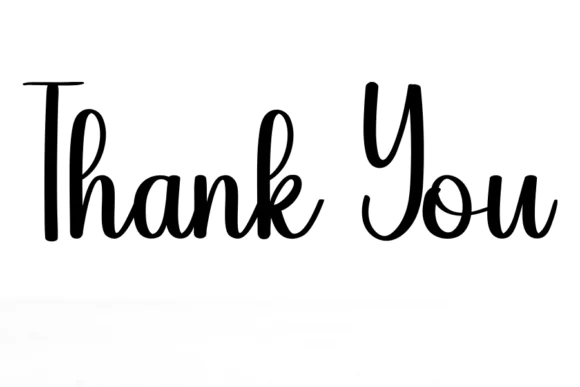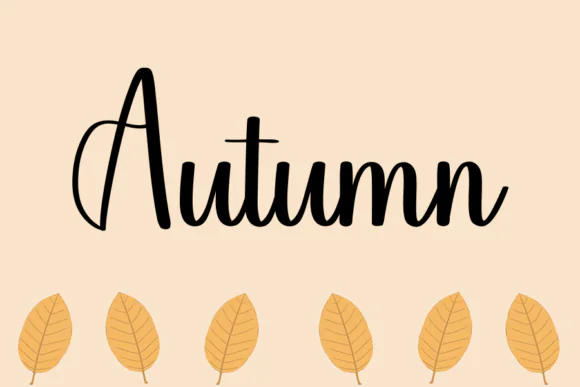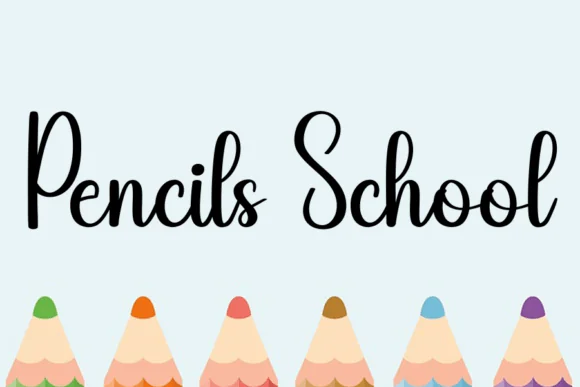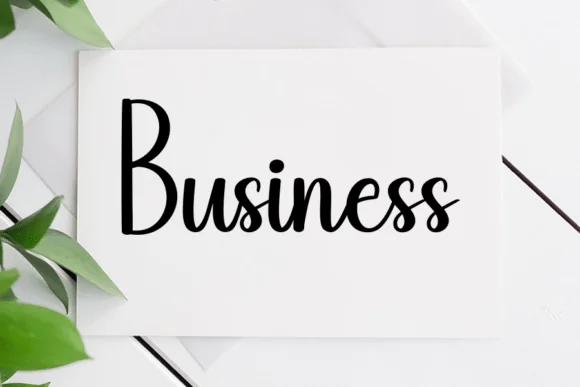
Backpack Font | Sweet Cursive Handwritten Typeface for Logos, Branding, Wedding Designs, Greeting Cards, Fashion Lookbooks & Elegant Projects
Create soft, romantic, and stylish designs with Backpack Font, a sweet cursive handwritten typeface designed to bring a gentle and joyful touch to your creative projects. Its smooth handwritten flow gives your designs a fancy yet casual appearance, making it suitable for both elegant formal projects and relaxed everyday designs.
Backpack Font is perfect for designers, wedding creators, boutique brands, small business owners, crafters, digital sellers, and print-on-demand creators who want a charming handwritten font for beautiful typography. It works wonderfully for branding, logos, wedding designs, greeting cards, fashion projects, lookbooks, marketing promotions, invitations, product labels, packaging, quote designs, and social media graphics.
With its joyful and romantic personality, this font helps your designs feel graceful, warm, and memorable. Whether you are creating a wedding invitation, boutique logo, heartfelt greeting card, feminine fashion layout, or elegant promotional graphic, Backpack Font adds a polished handwritten finish to your project.
• Logo design
• Branding and business identity
• Wedding invitations
• Wedding stationery
• Greeting cards
• Fashion designs
• Lookbooks
• Marketing promotions
• Product labels
• Packaging designs
• Quote designs
• Cricut and Silhouette crafts
• Romantic digital artwork
Design Style:
Sweet, cursive, handwritten, gentle, joyful, romantic, elegant, fancy, casual, feminine, graceful, stylish, soft, and charming.
Use Backpack Font to give your creative projects a beautiful handwritten personality and create typography that feels elegant, romantic, and easy to love.